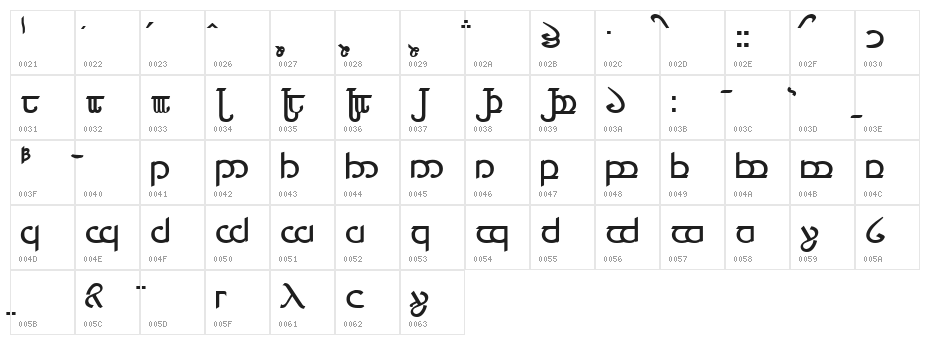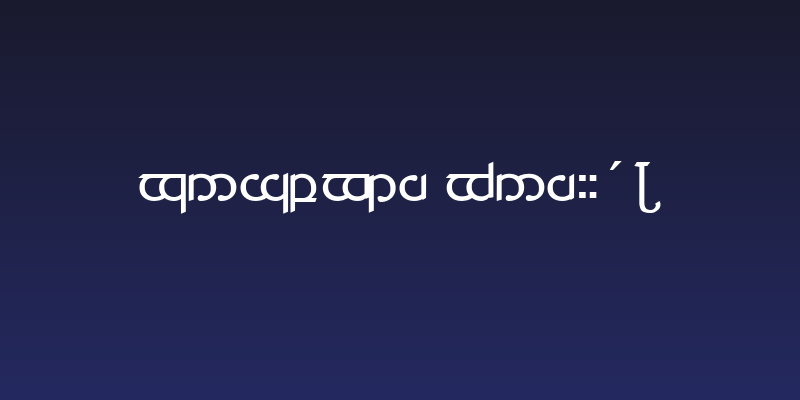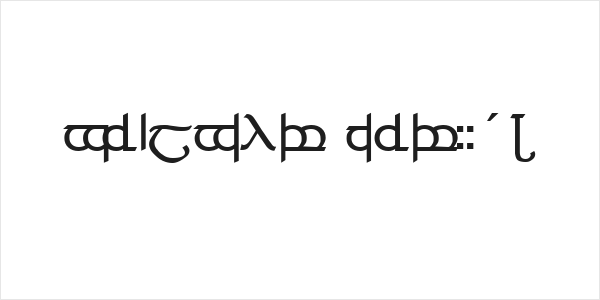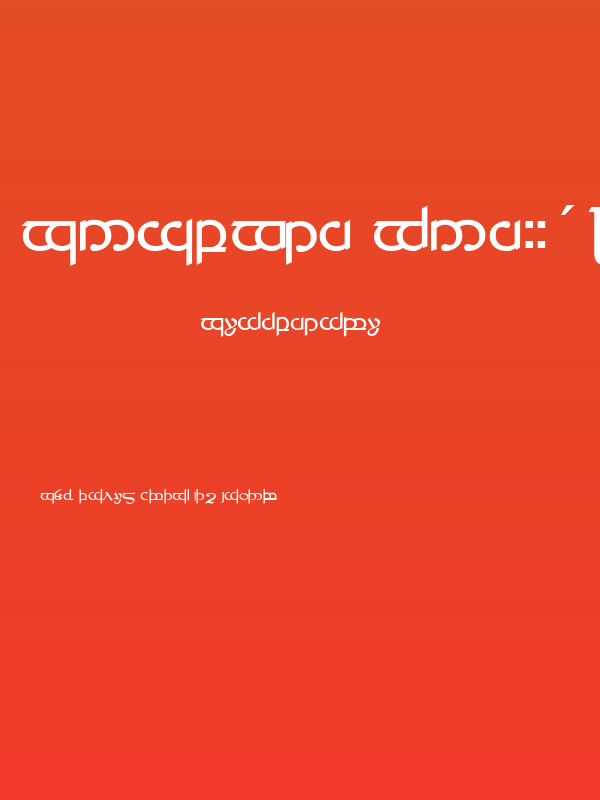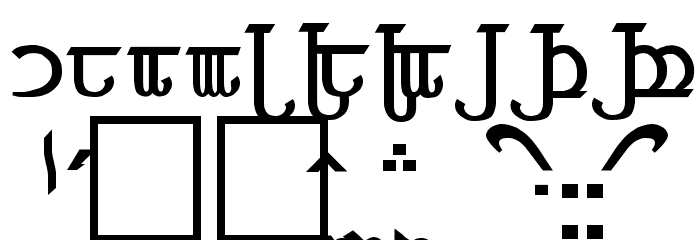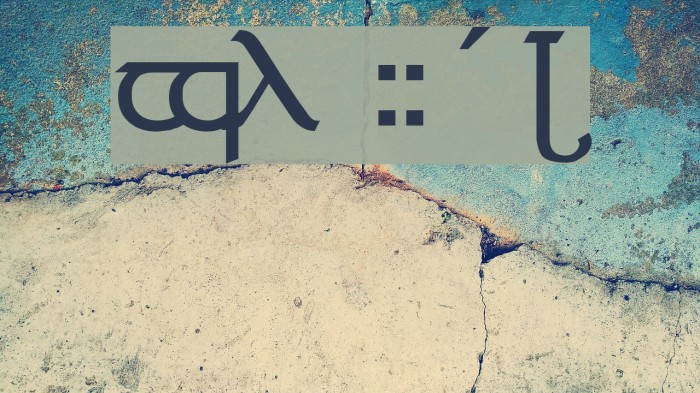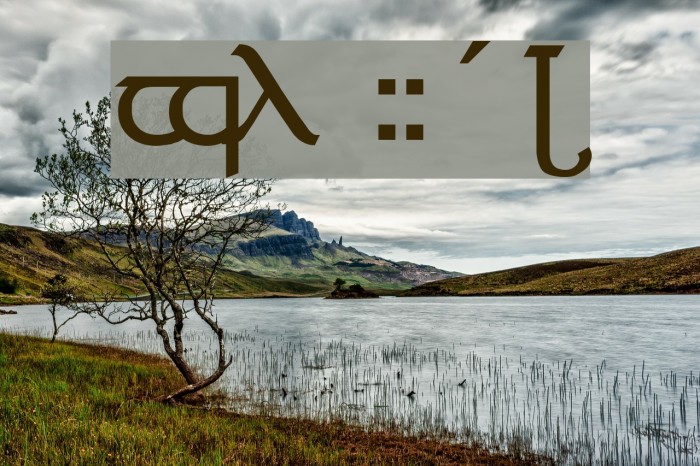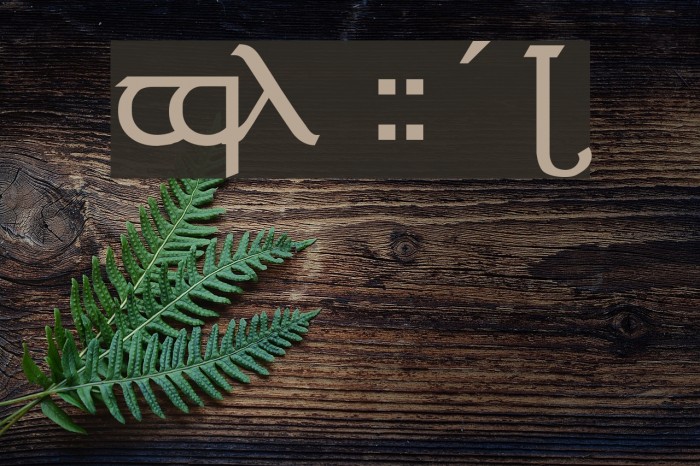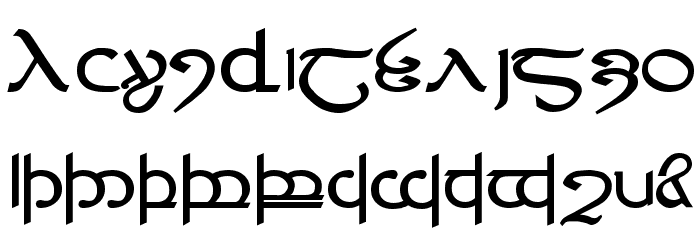
Tengwar ver. # 4 Font
Tengwar ver. # 4 Description
This font is a decorative script inspired by the Tengwar script, known for its elegant and flowing curves. The characters exhibit a unique blend of sharp angles and smooth, rounded forms, creating a mystical and ancient appearance. The font is characterized by its intricate detailing and distinctive style, reminiscent of calligraphic traditions. It features a consistent stroke width, contributing to a harmonious and balanced look. The overall design is highly stylized, making it suitable for projects that require a touch of fantasy or historical ambiance.
| Use Case | Logos, Titles, Decorative text |
| Proposed Projects | Ideal for fantasy-themed projects, book covers, movie posters, or any design requiring an ancient or mystical aesthetic. |